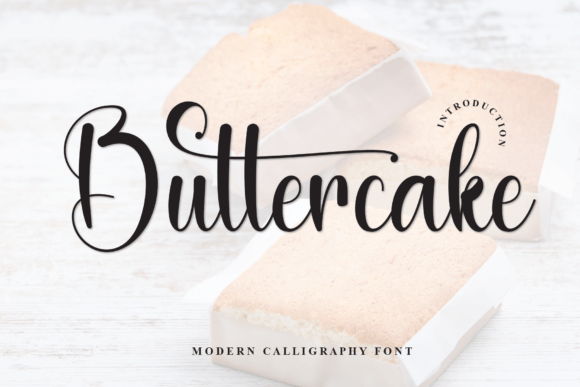
The Perfect Dose of Whimsy for Your Designs Do you remember the thrill of designing a special project, like a wedding invitation or a birthday card, and wanting to convey the exact right amount of joy and excitement? The moment when you need to transport your audience to a world of happiness and cheer, but…